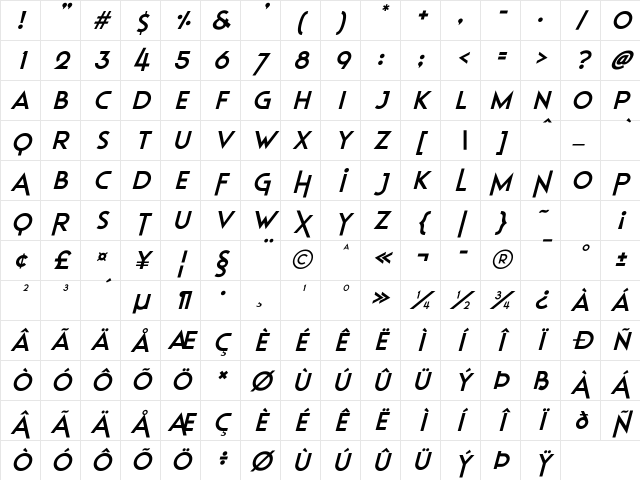
Complete Elastic Stretch Italic glyph index. Displaying only characters natively supported by Elastic Stretch Italic font.
Elastic Stretch is a composed and adaptable typeface that performs quietly and consistently across a wide range of design contexts. The slanted form adds forward momentum and visual energy.
Pro Tip: Use Elastic Stretch for emphasis, pull quotes, and subheadings where its slanted energy can add rhythm to the layout.